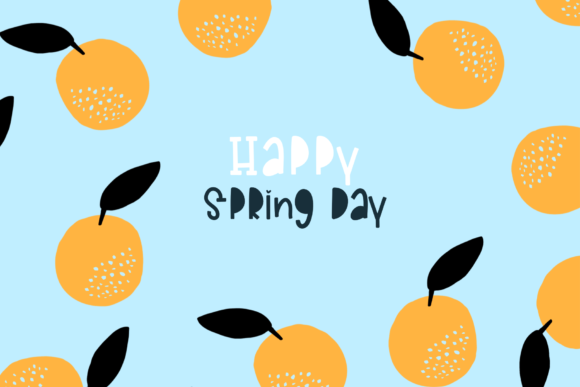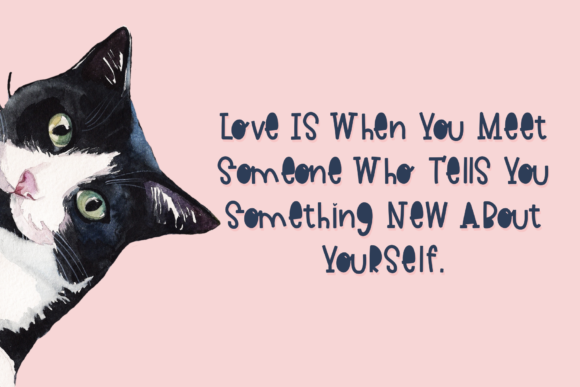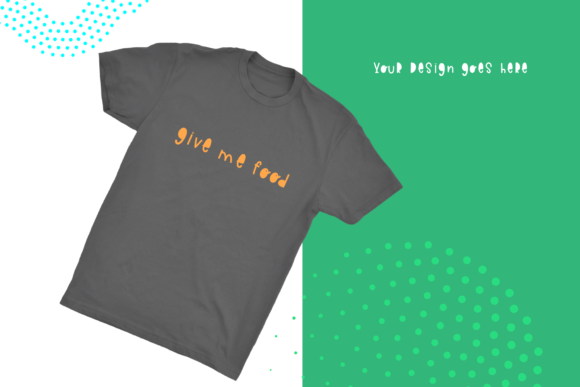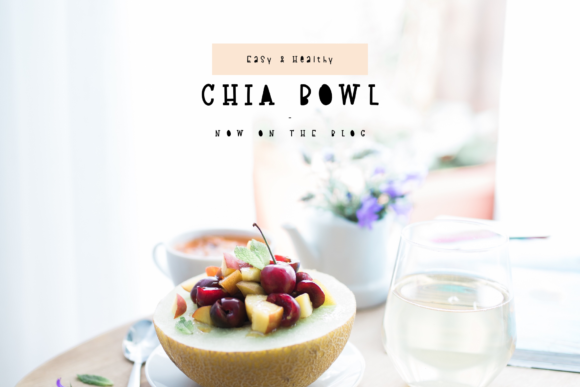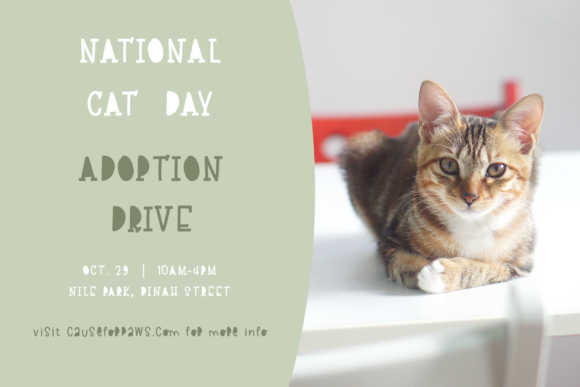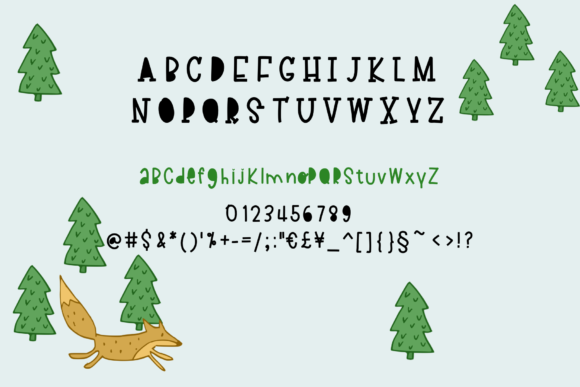
Unleash Your Inner Child with the Grapefruit Font
Remember the feeling of sitting at your desk, surrounded by crayons and colorful markers, bringing your imagination to life? That same sense of creativity and playfulness can be harnessed with the Grapefruit Font. This delightful handwritten font is perfect for designers looking to add a touch of whimsy and authenticity to their projects.
Designed to embody the carefree spirit of childhood, Grapefruit Font is an enchanting tool for creatives of all ages. Its childlike playfulness makes it an ideal choice for kids and school projects, but its versatility also makes it a valuable asset for designers seeking to add a unique touch to their work. Whether you’re designing a children’s book, a website, or a marketing campaign, Grapefruit Font is sure to bring a smile to your face and make your project stand out.
Grapefruit Font Key Features
- Font Family: Grapefruit Font is a sans-serif typeface designed for digital use.
- Unique Characteristics: Features a unique blend of modern and retro elements, with a focus on legibility and readability.
Grapefruit Font Review
Overall, I think Grapefruit Font is a solid choice for designers who want a fun and playful font. ✨ The font’s rounded edges and soft curves make it perfect for creating a friendly and approachable feel in your designs. ✨ The font’s weight range is also quite extensive, making it suitable for a variety of applications, from headings to body text.
One thing I appreciate about Grapefruit Font is its versatility. ✨ You can use it for anything from branding to packaging, and it will always look great. The font’s simplicity also makes it easy to pair with other fonts, which is a big plus in my book.
While Grapefruit Font is a great choice for many projects, there are a few limitations to consider. ⚠️ For one, the font’s rounded edges can sometimes make it difficult to read in small sizes or at high resolutions. ⚠️ Additionally, the font’s weight range, while extensive, can sometimes feel a bit inconsistent.
- ✨ Fun and playful feel
- ✨ Versatile and easy to pair with other fonts
- ✨ Extensive weight range
- ⚠️ Can be difficult to read in small sizes or at high resolutions
- ⚠️ Weight range can feel inconsistent at times
Grapefruit Font is a solid choice for designers who want a fun and playful font. While it’s not perfect, its versatility and extensive weight range make it a great option for a variety of projects. Just be sure to use it wisely, and you’ll be golden.
Tips for Getting the Most Out of Grapefruit Font
Use the Grapefruit font for titles and headings to add a touch of elegance and sophistication to your designs.
Combine the Grapefruit font with other fonts to create a unique and eye-catching typography style.
Experiment with different font sizes and colors to find the perfect balance for your design.
The Grapefruit font is ideal for:
Designing wedding invitations and stationery.
Creating food and beverage branding materials.
Developing luxury and high-end product packaging.